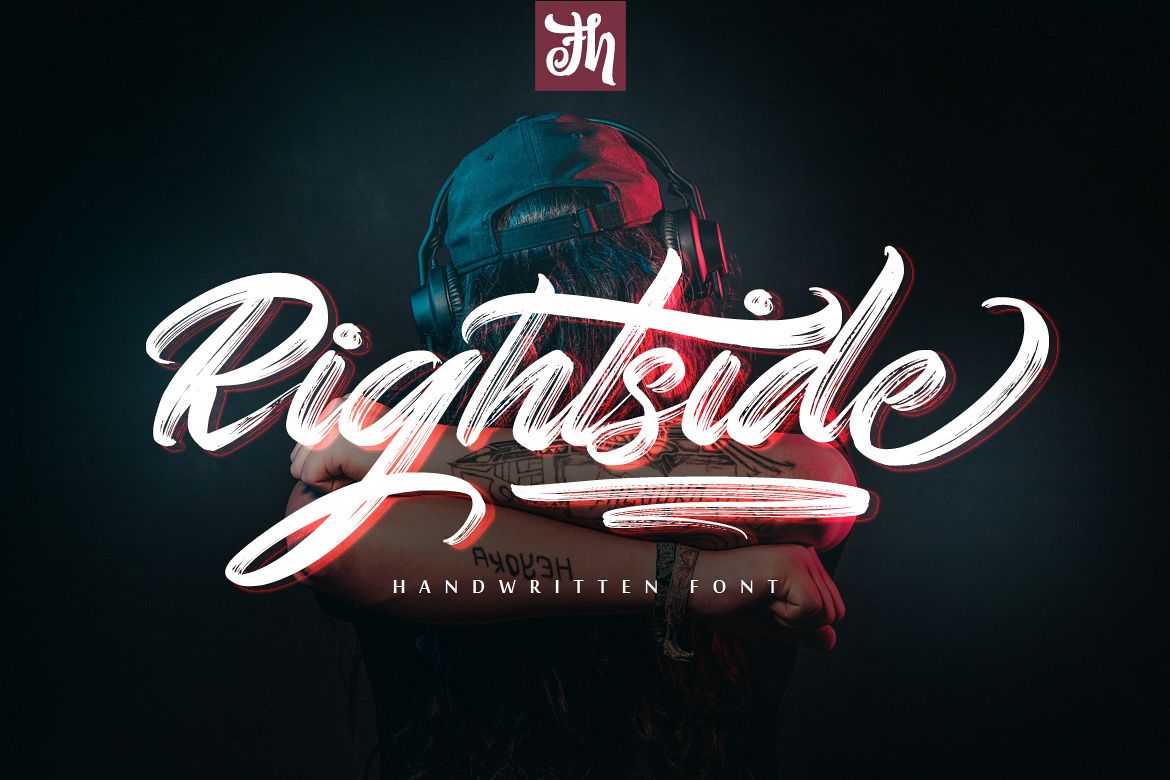
Rightside - Handwritten Font
Rightside  is Script Font with Handlettering Dry Brush Style, with opentype feature include of the font. Suitable for design, element design, wedding, event, t-shirt, logo, badges, sticker, and awesome work, etc...
Feature Of The Font:
- All Standard Character, Symbol, Multilanguage, Ligature, Stylistic Set, and Swashes.
- Unique style fonts